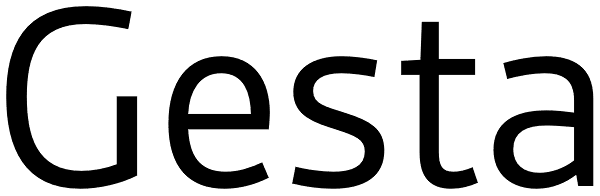
Gesta
Gesta is a friendly versatile sans serif typeface suitable for corporate and editorial purposes. With its generous x-height and slightly curved strokes, Gesta combines a distinctive and warm feel with a modern look. It is available in 24 weights...